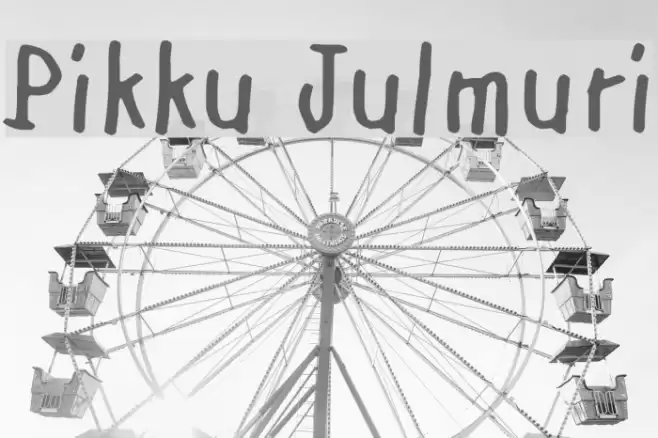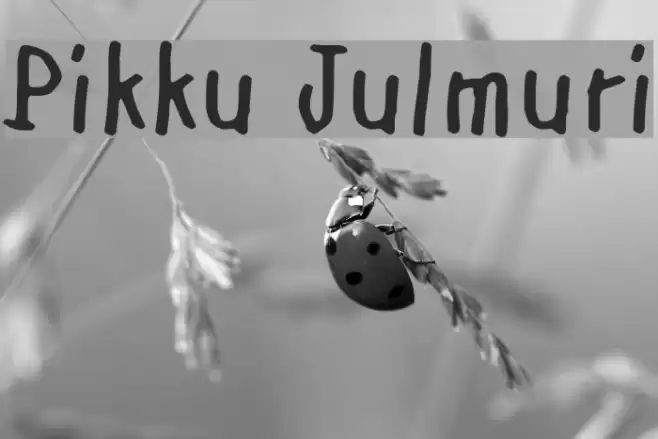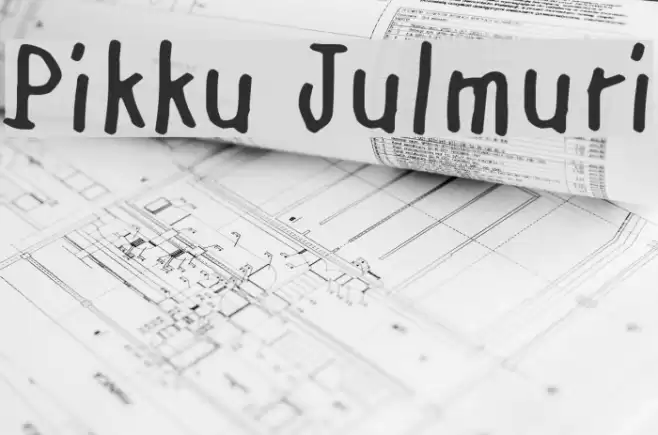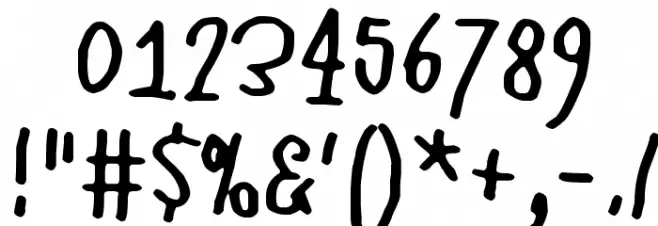
Pikku Julmuri Font
Pikku Julmuri Description
This font exhibits a playful and informal handwritten style, characterized by its irregular and slightly whimsical letterforms. The uppercase and lowercase letters maintain a consistent, casual aesthetic, with strokes that vary in thickness, adding to its hand-drawn appeal. The numerals and special characters follow the same stylistic approach, ensuring a cohesive look across all glyphs. The overall design is approachable and friendly, making it suitable for projects that require a personal touch. Its unique character shapes and slight slant give it a dynamic and lively appearance.
A playful, handwritten font with irregular, whimsical letterforms from Uncategorized fonts.
- Proposed Projects: Ideal for children's books, greeting cards, casual branding, and creative projects that benefit from a personal, informal touch.
- Overall Style: Casual, Playful
- Use Case: Headlines, Informal text, Creative projects